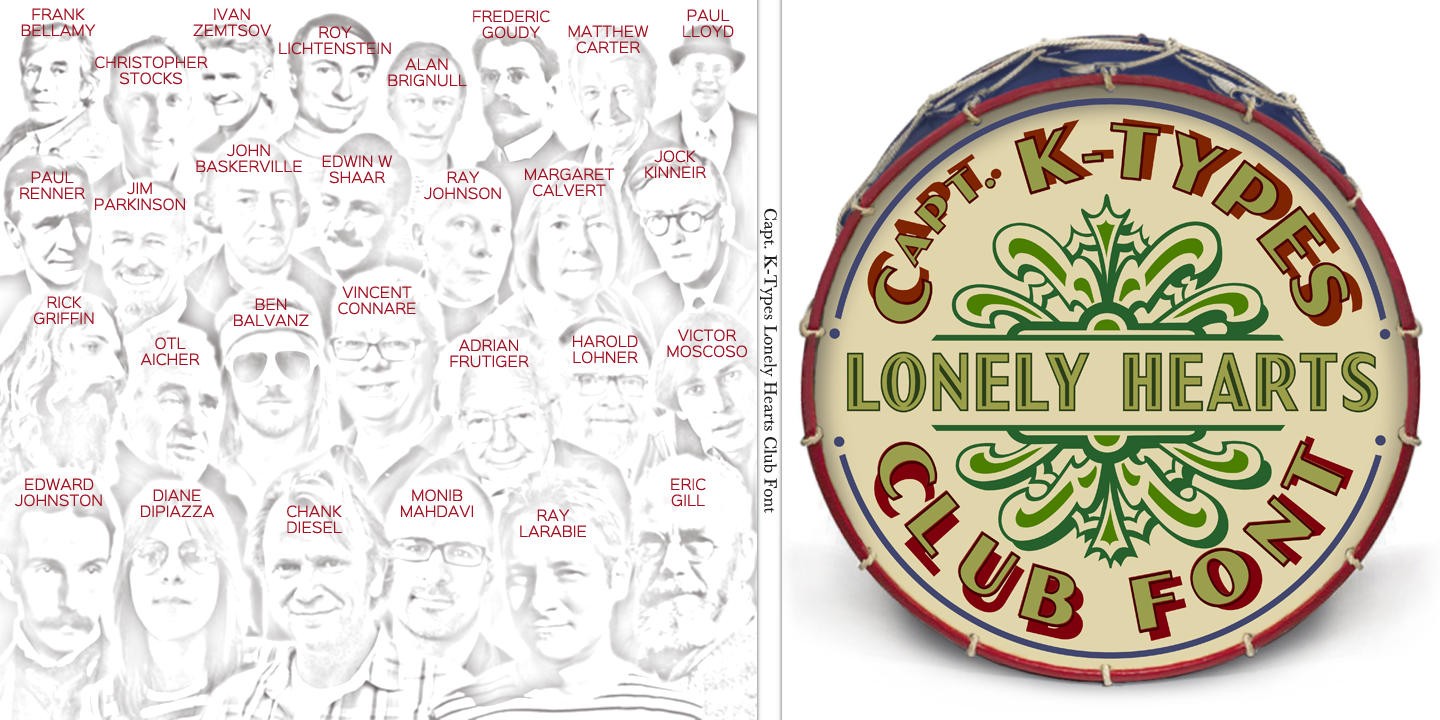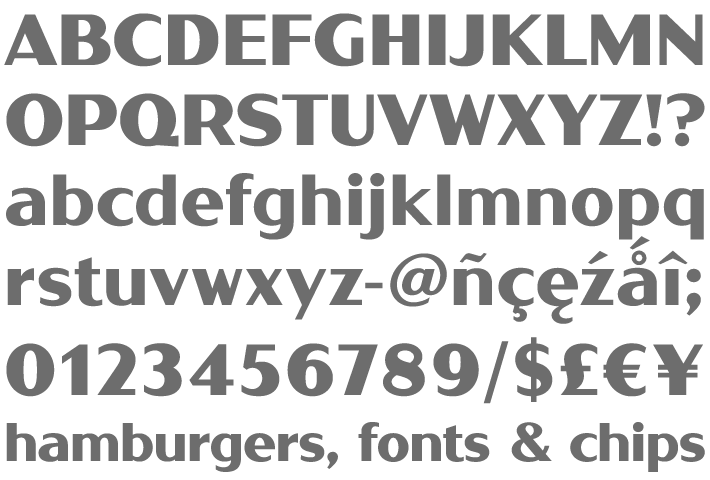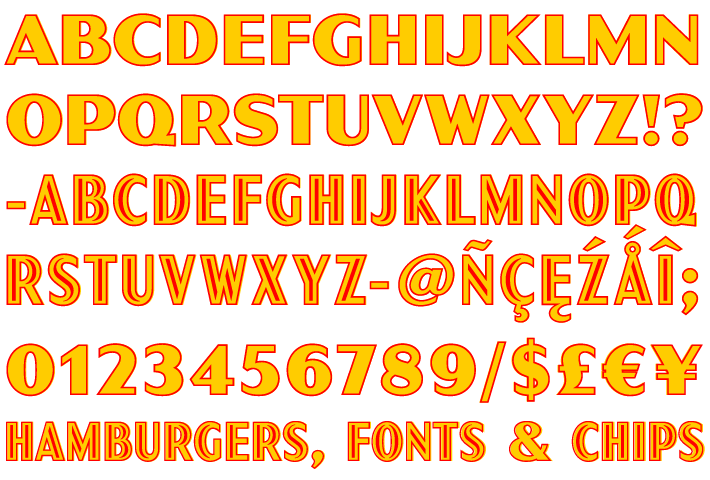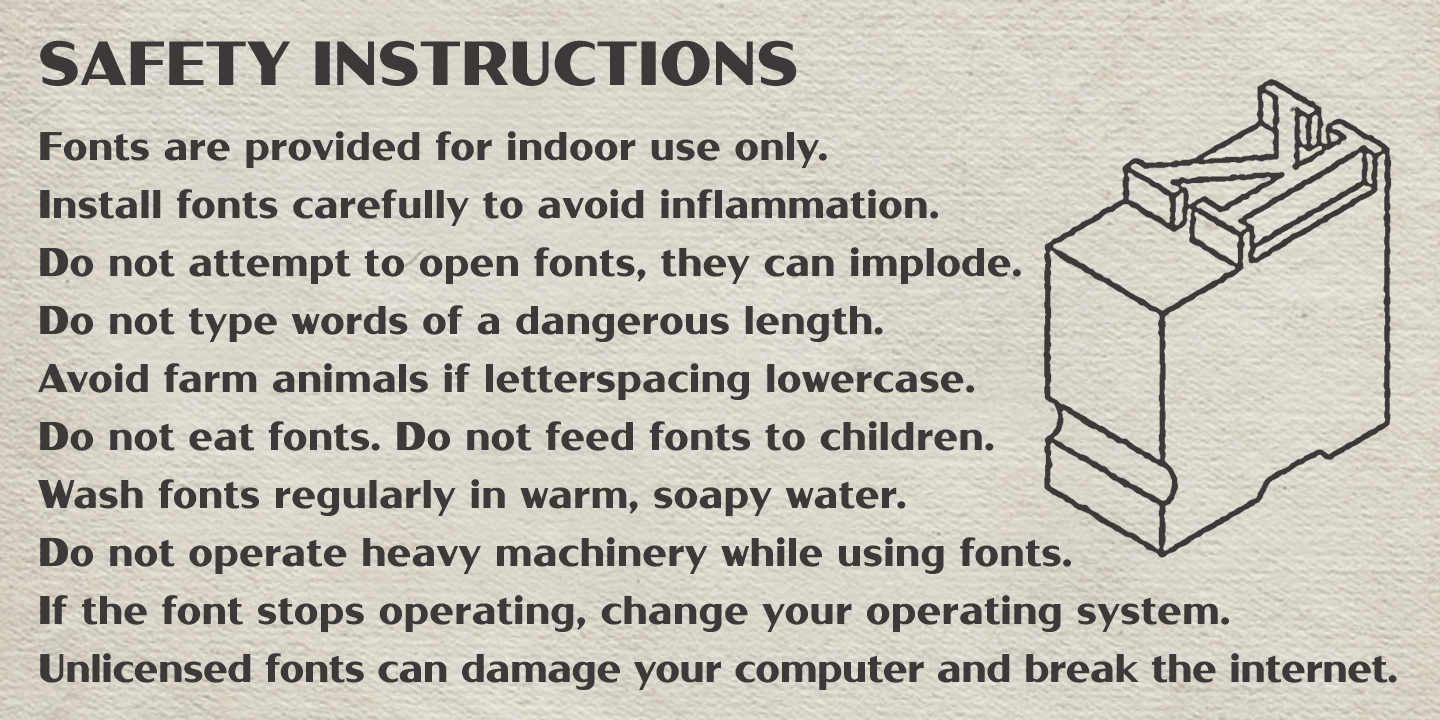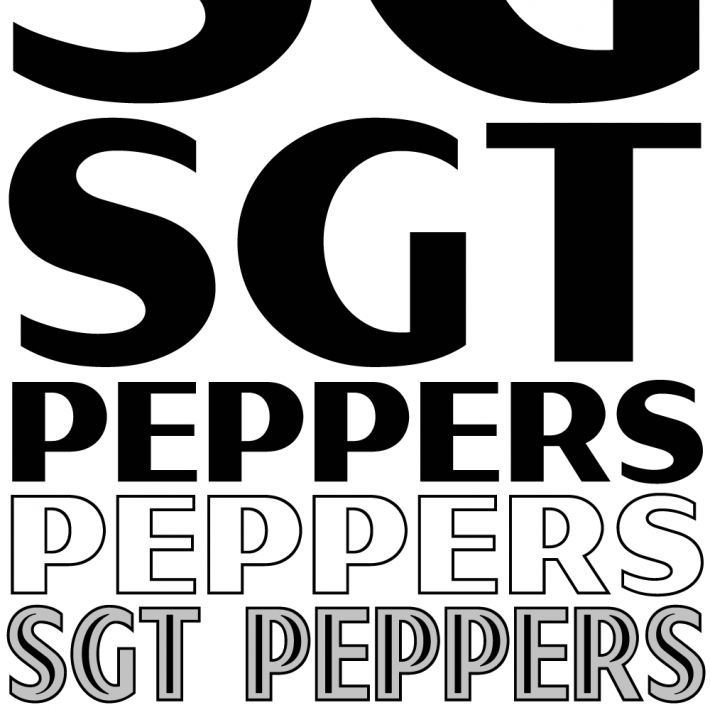
Sgt Peppers
Sgt Peppers Lonely Hearts Club is a font inspired by the capital letters on the bass drum in the Beatles’ Sgt Pepper album cover. The original lettering was hand painted by fairground artist Joe Ephgrave during March 1967 in an art deco style he called ‘futuristic’. The font completes the uppercase, adds a lowercase, and includes a full complement of over 400 characters.
Sgt Peppers Outline and Sgt Peppers Outline Fill are two additional fonts with matching spacing and kerning that can be overlapped for creating bicolor/multicolor effects and faux drums. The Outline and Outline Fill fonts do not contain lowercase characters, instead they comprise two weights of capitals as painted on the Sgt Pepper drum. The uppercase letters are in the wider style from around the outer edge of the drum, and the lowercase keys deliver the more condensed ‘Lonely Hearts’ inline style from the middle of the drum.